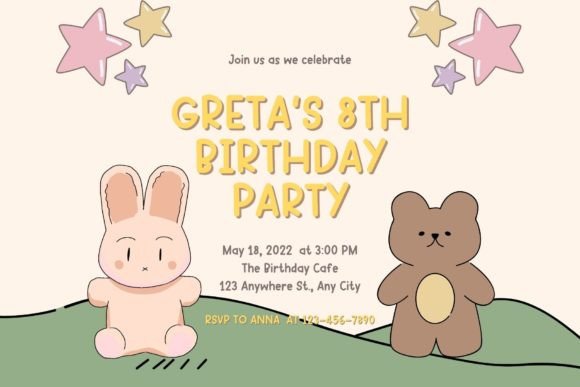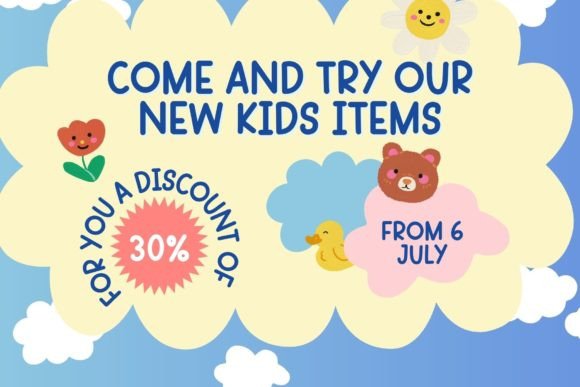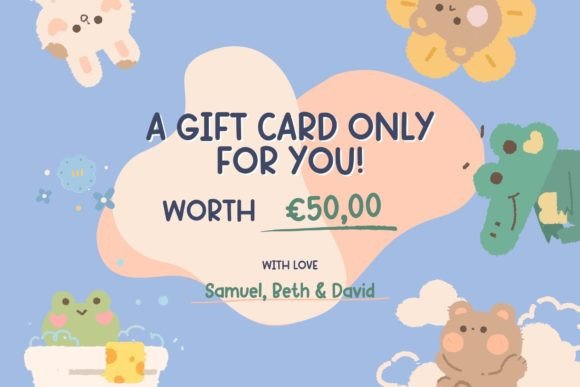
Braxton Font: Free Download Now
Introduction to Braxton Font
Braxton is a cute handwritten display font.
It embodies playfulness and authenticity and is the perfect choice for all your favorite projects such as blog posts, logos, branding, ads, invitations, greeting cards, planners, photo albums, decorations, and much more .
Why Choose Braxton Font?
Braxton Font offers exceptional quality and versatility, making it a valuable addition to your design toolkit. Whether you’re creating for personal projects or commercial use, Braxton Font delivers professional results.